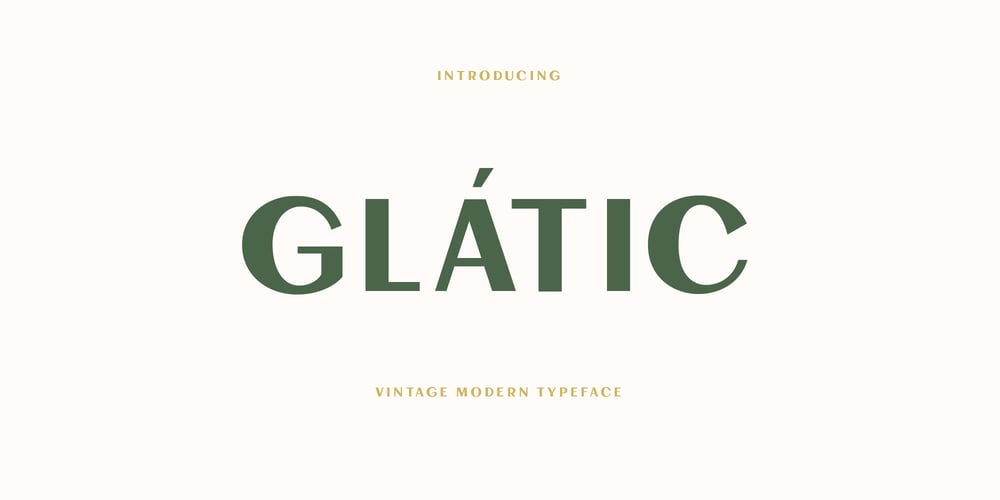
Glatic Font Family was designed by abdul artega and published by Yukita Creative. Glatic contains 1 styles and family package options. Introducing Glatic Typeface, a fancy bold font. Its unique construction is inspired by nature and all things beautiful. It’s meant for graphic designers and typography professionals to get more done with style in mind! This font will go well with logos, headlines, titles, and minimal layouts.Features.- Fonts can be read from a much larger distance than regular fonts- Elegant letters give the impression of luxury- Smooth curves for elegant typography- Supports all languages in the world (37)- Versatile Single Font.- One font for all needs.Recommended use Play with your letter spacing to add more class to your designs.